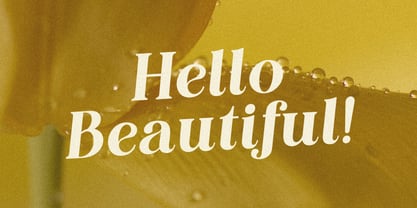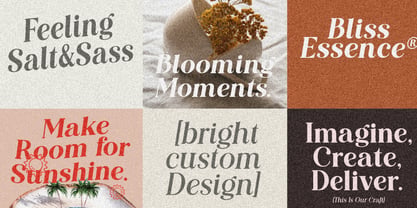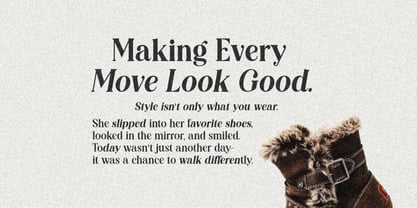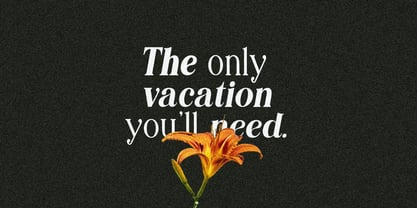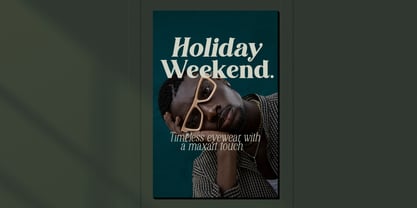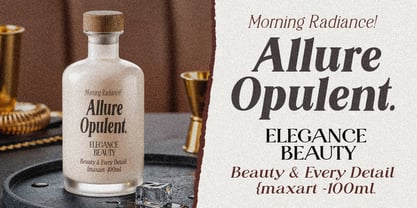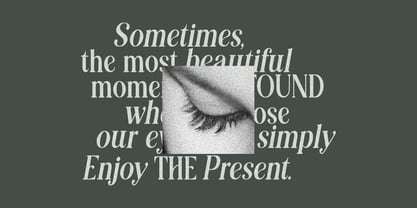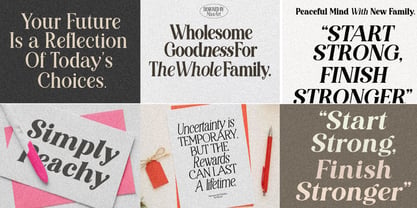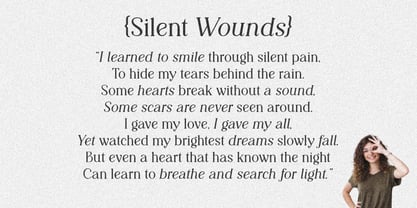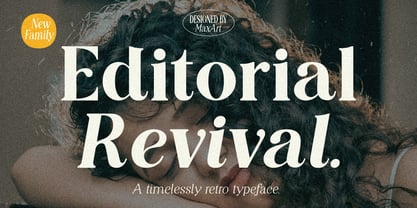
Editorial Revival
The Editorial Revival Font Family was designed by Md Masud Rana and published by MaxArt. Editorial Revival contains 14 styles and family package options. More about this family
Say hello to Editorial Revival — a refined and versatile type family designed to bring elegance, personality, and a distinctive editorial character to modern typography.
With carefully crafted letterforms and a balanced range of weights and styles, Editorial Revival is perfect for creating sophisticated headlines, fashion branding, magazine layouts, posters, packaging, social media graphics, and more.
### A Complete Type Family
Editorial Revival includes 14 fonts, featuring:
* Light to Bold
* Light Italic to Bold Italic
* Uppercase & lowercase characters
* Numbers & punctuation
* Multilingual support
* Carefully crafted OpenType features
* Recommended characters and available glyphs clearly shown in the previews
Mix and match the weights and italic styles to create contrast, hierarchy, and expressive typography for a wide range of creative projects.
### Perfect For
* Editorial & Magazine Design
* Branding & Visual Identity
* Logos & Headlines
* Posters & Advertising
* Packaging Design
* Fashion & Lifestyle Projects
* Social Media Graphics
* Invitations & Stationery
* Creative Display Typography
Whether you want something subtle and sophisticated or bold and attention-grabbing, Editorial Revival gives every project a polished and distinctive typographic voice.
Explore the family, experiment with the different styles, and make the typography your own.